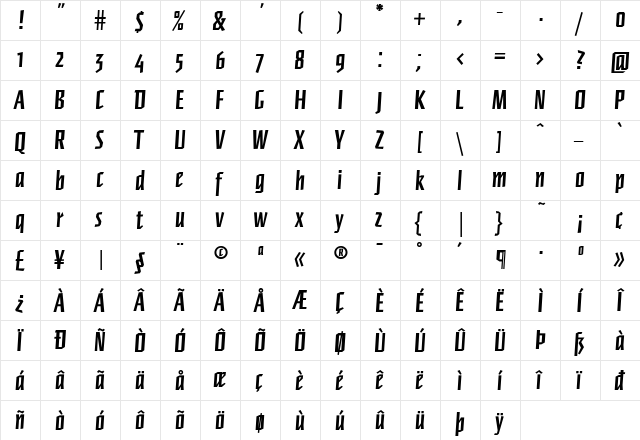
FFNewberlinBold Regular
Design Context for FFNewberlinBold Typeface
FFNewberlinBold offers clean, dependable letterforms without strong stylistic allegiance, making it a practical choice for designers who need flexibility. The heavy weight commands attention and anchors typographic hierarchies.